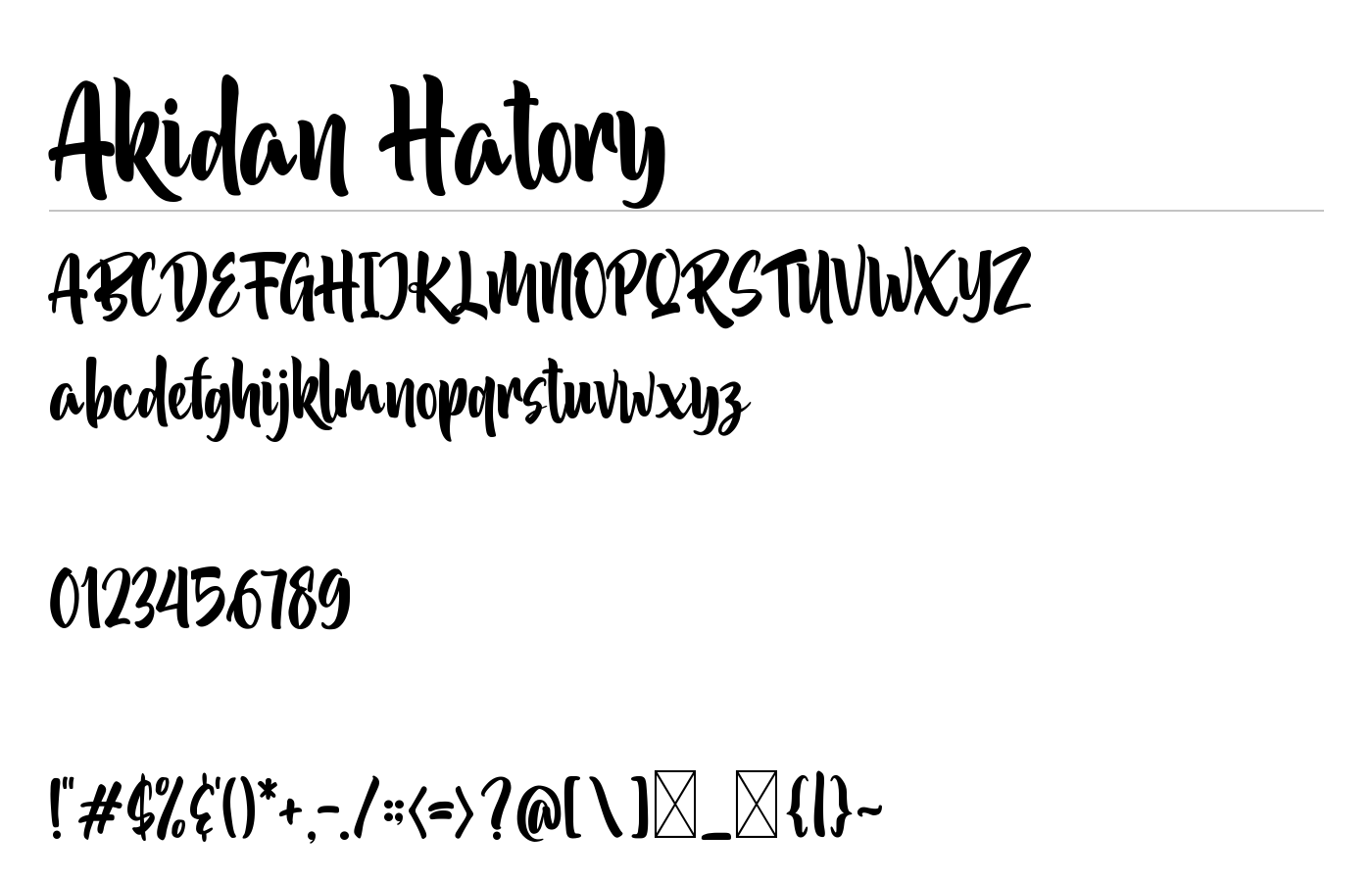
Akidan Hatory is a lively handwritten script font with a bold, brush-like weight that gives it a casual yet confident personality. Its tall x-height and fluid strokes create a friendly, approachable feel, making it perfect for creative branding, social media graphics, and playful headlines. This font shines in designs that seek a personal, modern touch with good readability and energetic style.
Akidan Hatory Font
About Akidan Hatory Font